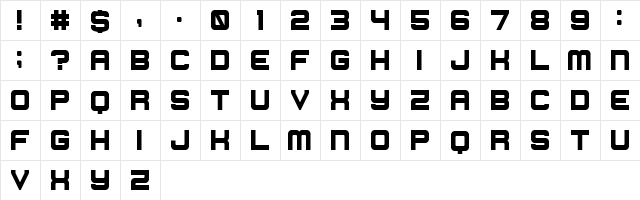
Scorpion Regular
| Designer | GeronimoFonts |
Design Context for Scorpion Typeface
Scorpion is a composed and adaptable typeface that performs quietly and consistently across a wide range of design contexts.